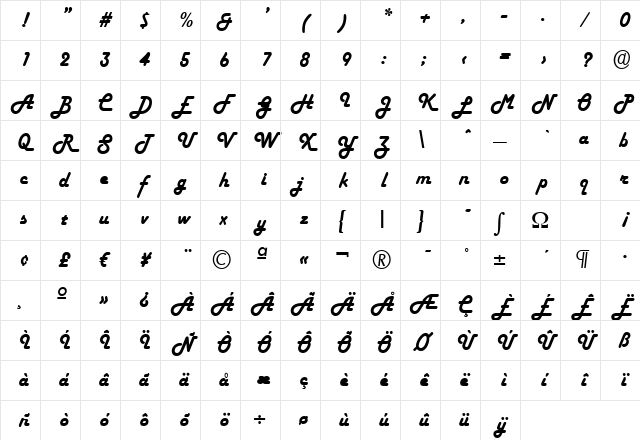
Script-H652 Regular Free Font
Script-H652 Regular
Design Context for Script-H652
Script-H652 flows with the natural rhythm of handwritten lettering, making it ideal for designs that call for warmth and personal expression.
Font Pairing: Combine Script-H652 with a simple geometric sans for maximum contrast - the tension between flowing curves and clean structure is a classic typographic pairing.
Pro Tip: Use Script-H652 for short runs of text - names, titles, or taglines. Extended body copy in script faces tires the eye quickly.